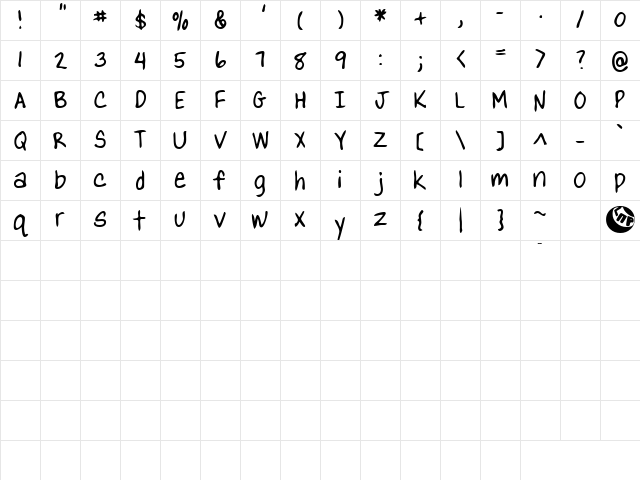
Gweeble Regular
Foundry: Liquid Nite Productions
Designer: Andrew Hungerford
Design Context for Gweeble
Gweeble is a composed and adaptable typeface that performs quietly and consistently across a wide range of design contexts.
Pro Tip: Use Gweeble in both headline and body roles to test its range before committing to a single application.